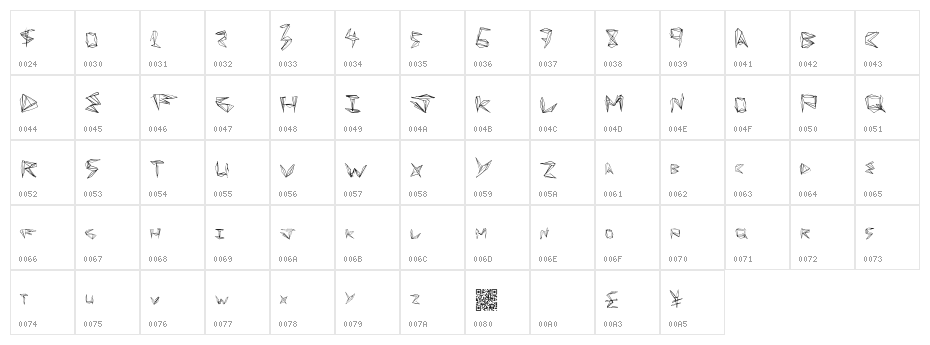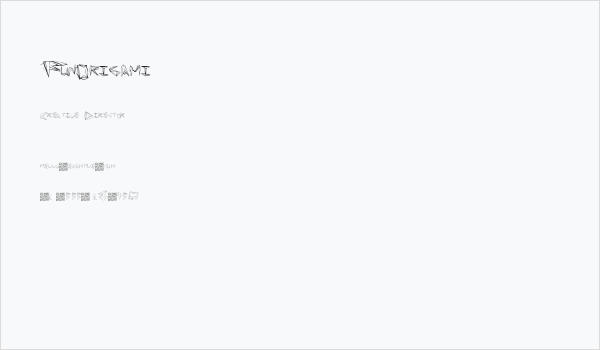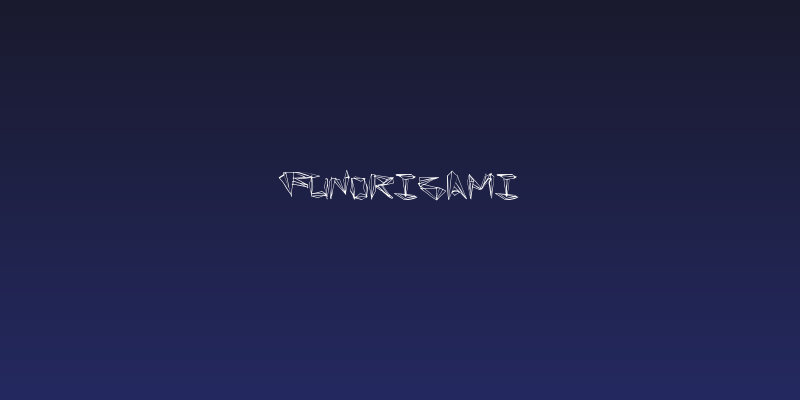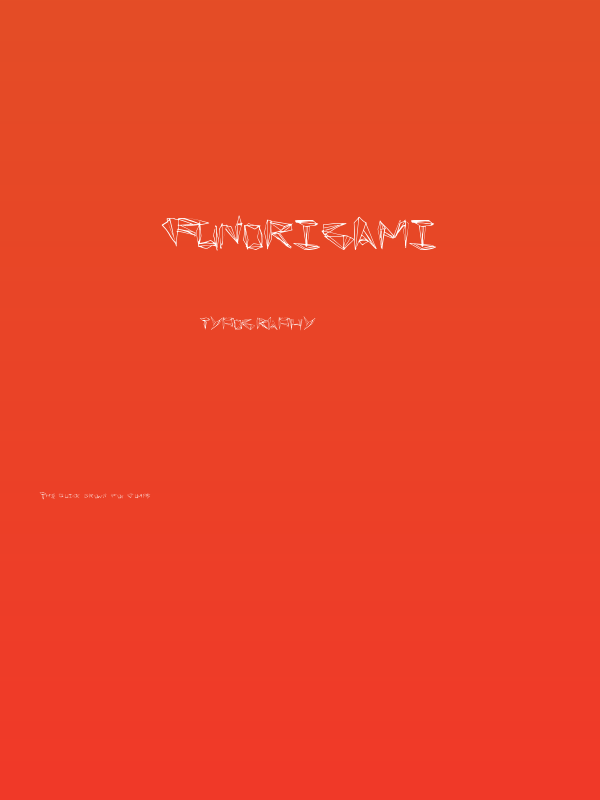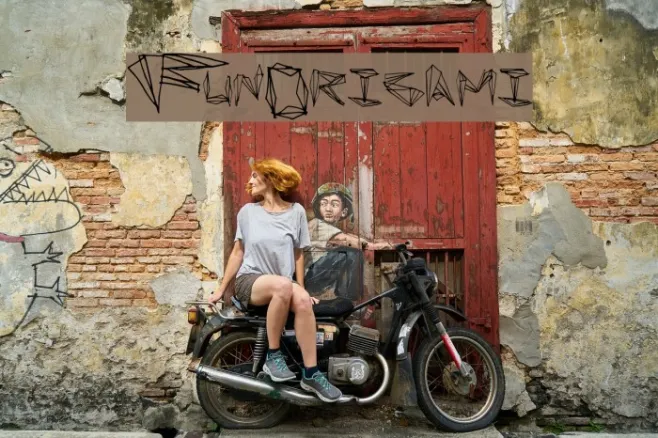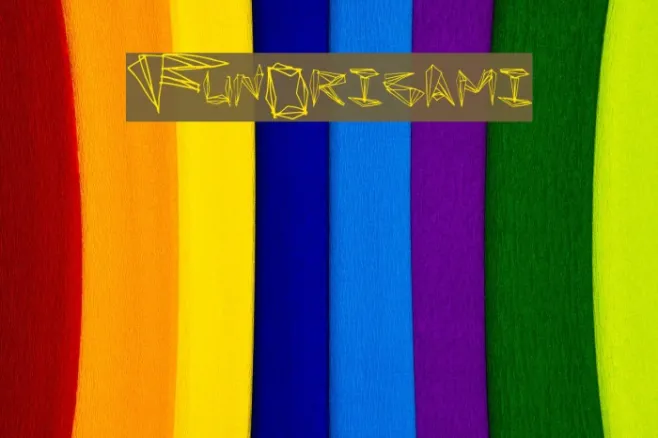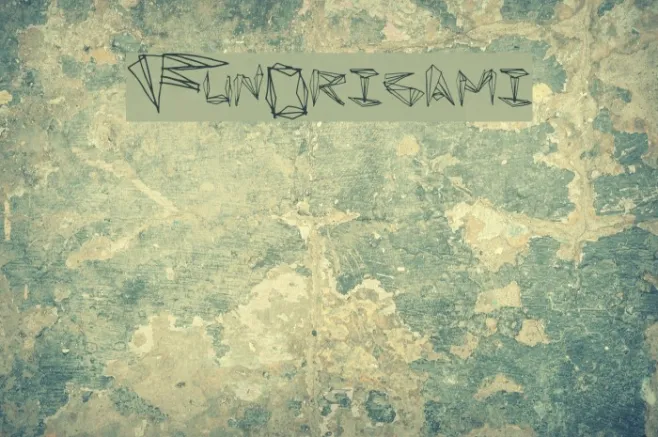
FunOrigami Font
FunOrigami Description
This font features a unique, geometric design inspired by the art of origami. Each character is crafted with intricate folds and sharp angles, creating a three-dimensional effect that is both striking and playful. The lines are clean and precise, giving the font a modern and artistic feel. The uppercase and lowercase letters maintain a consistent style, with the same angular and folded appearance. Numbers and special characters are designed with the same attention to detail, ensuring a cohesive look across all elements. This font is perfect for projects that require a creative and unconventional touch.
| Overall Style | Modern, Artistic |
| Use Case | Logos, Posters, Artistic Branding |
| Proposed Projects | Ideal for creative projects such as posters, logos, and artistic branding materials where a unique and playful aesthetic is desired. |